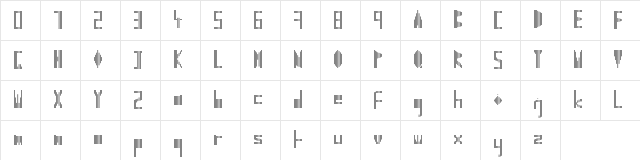
Untitled Stribatonbold Free Font
Untitled Stribatonbold
Style: Stribatonbold
Untitled Family
Untitled Stribatonbold
Design Context for Untitled
Untitled is a composed and adaptable typeface that performs quietly and consistently across a wide range of design contexts. Its bold stroke weight gives it real presence on the page.